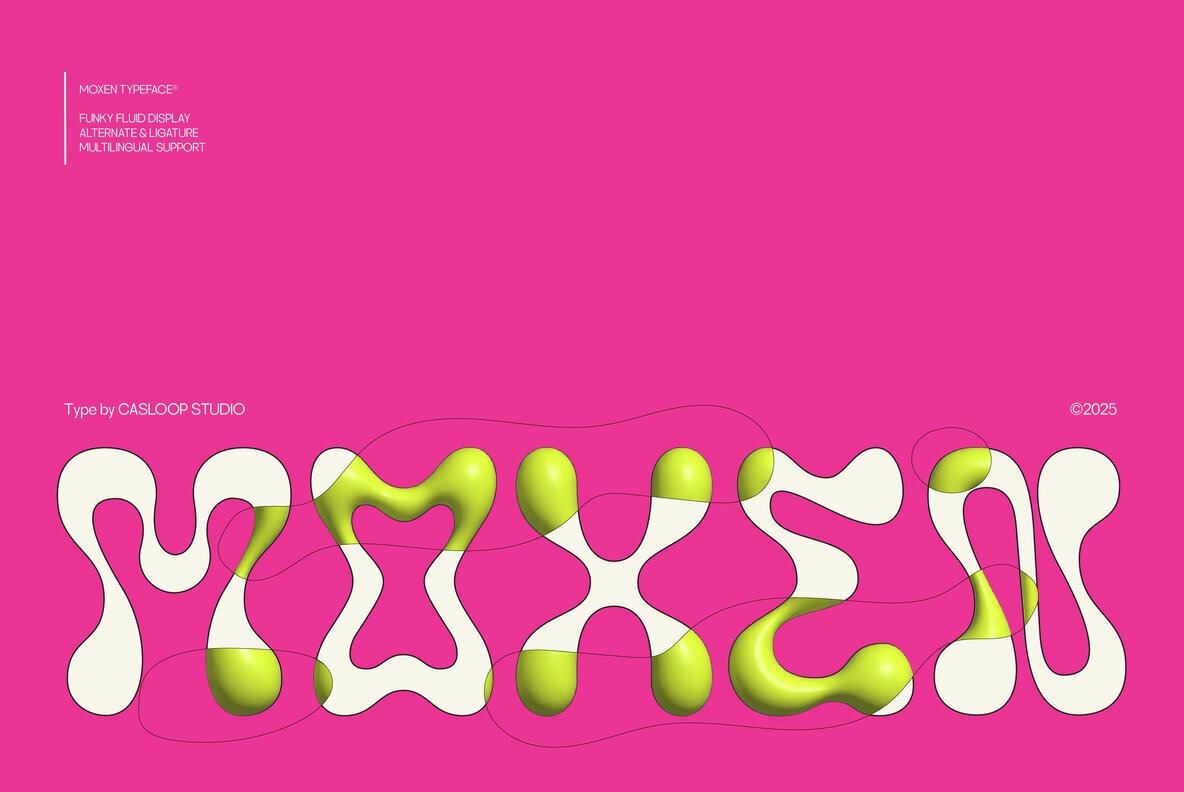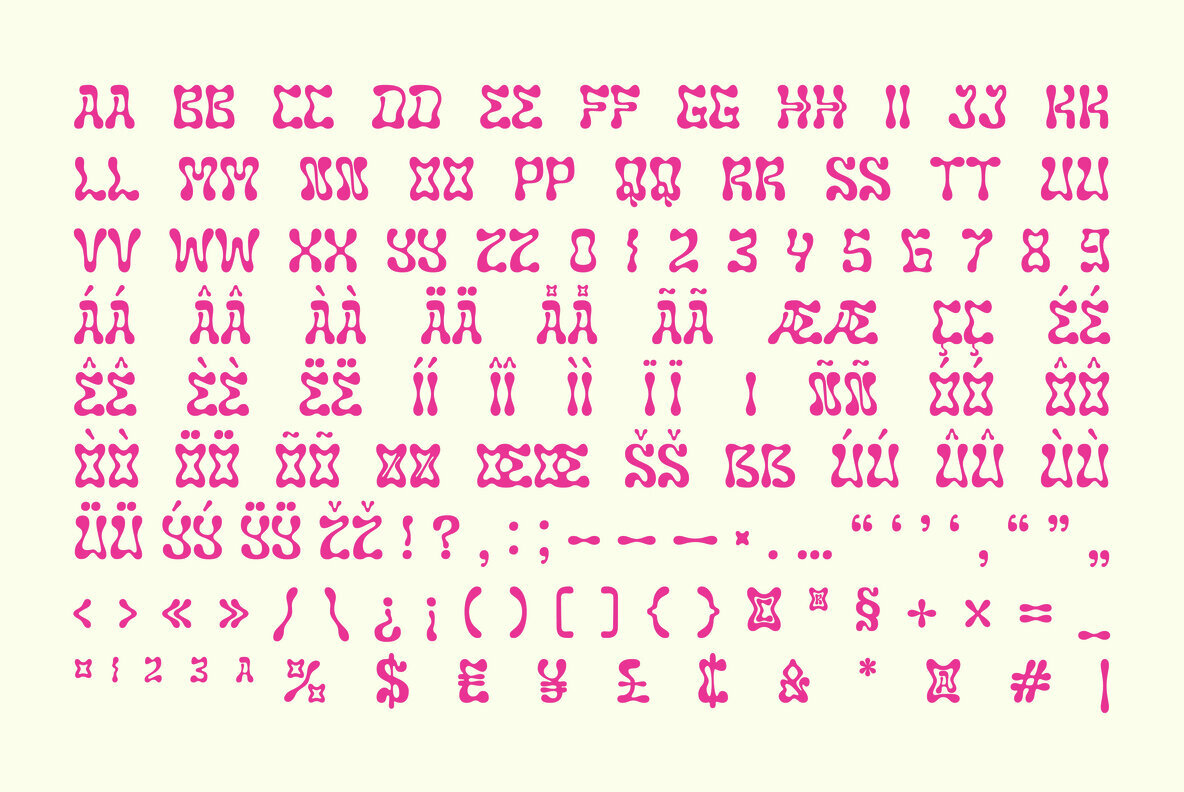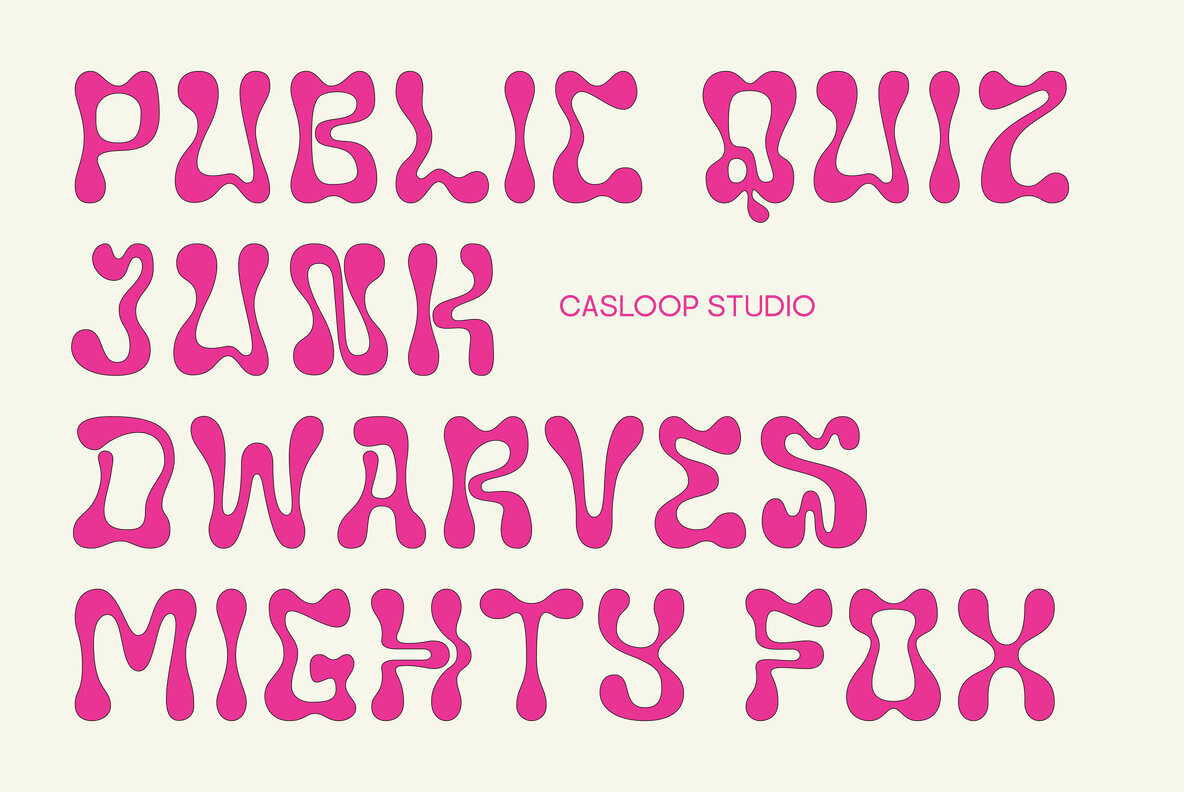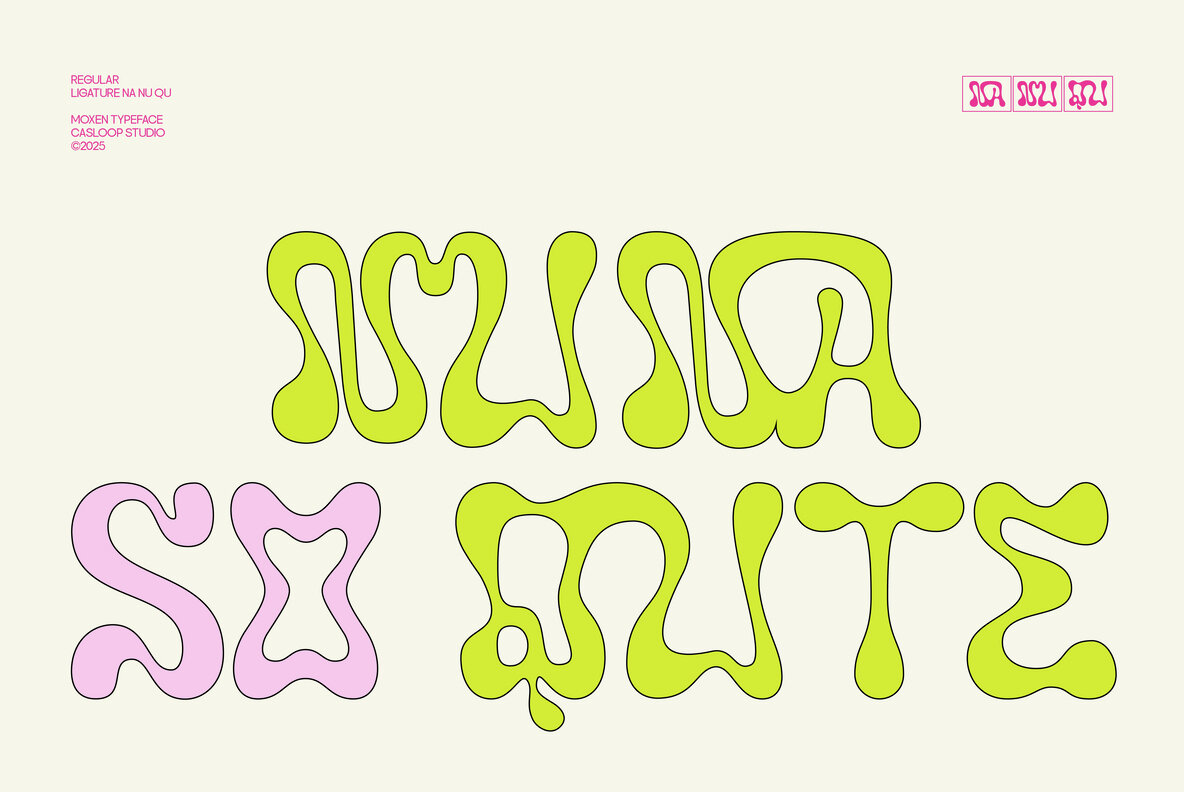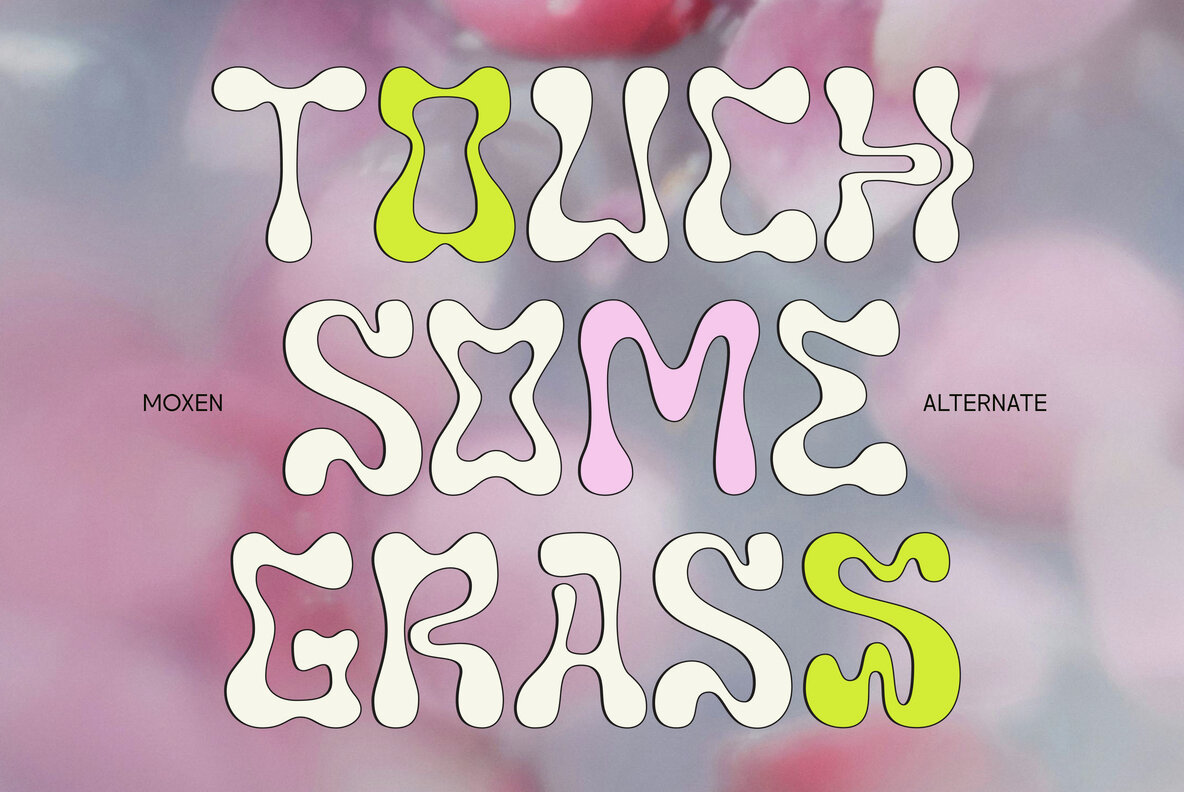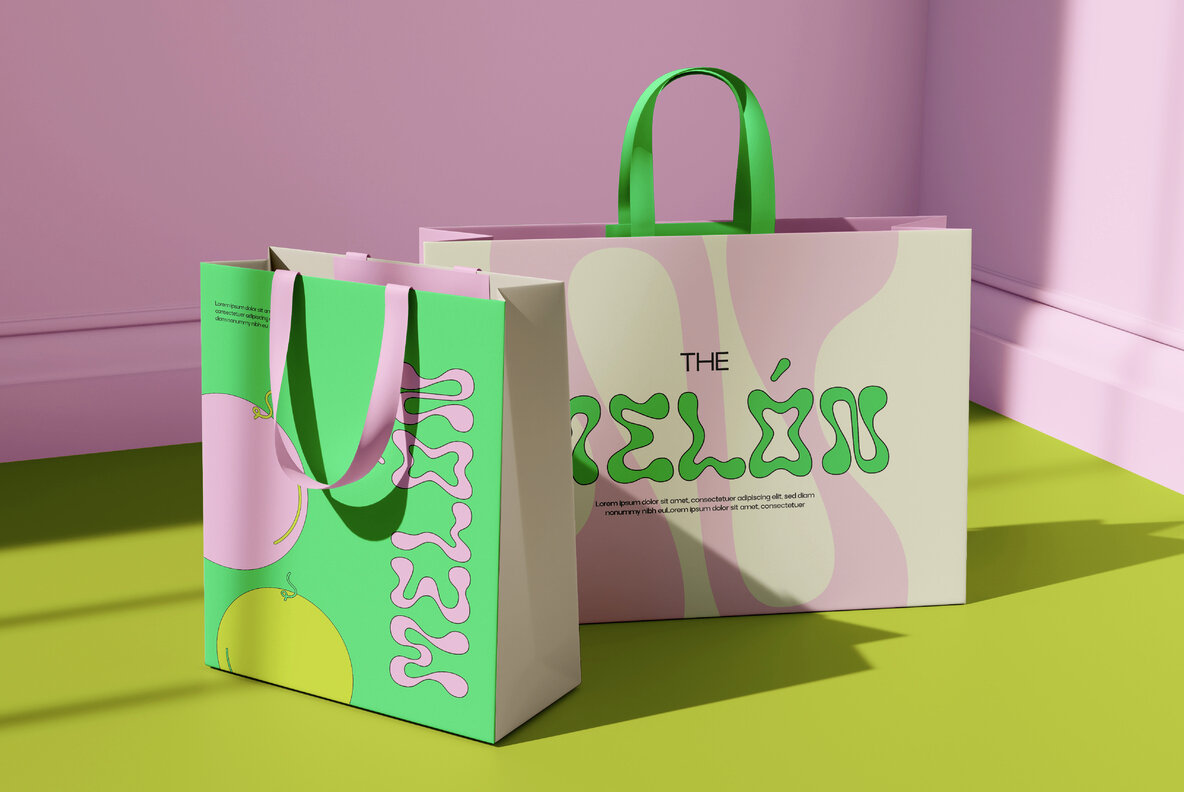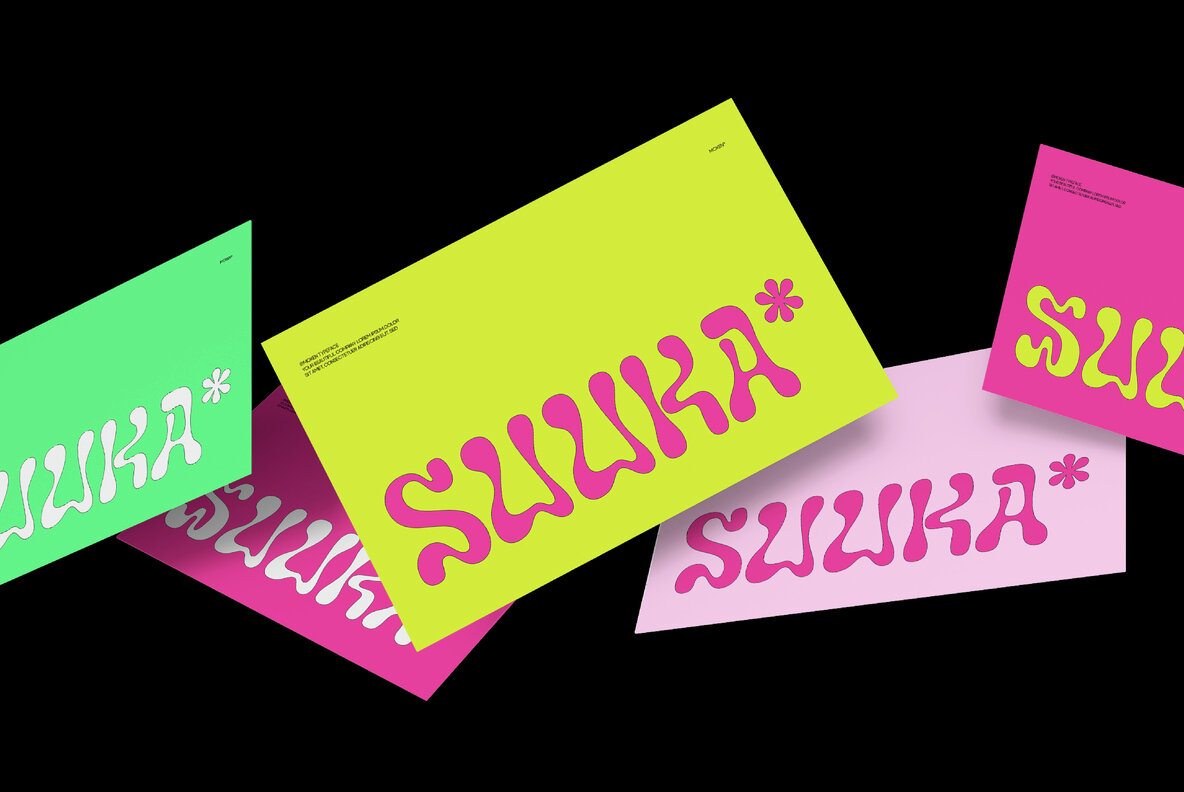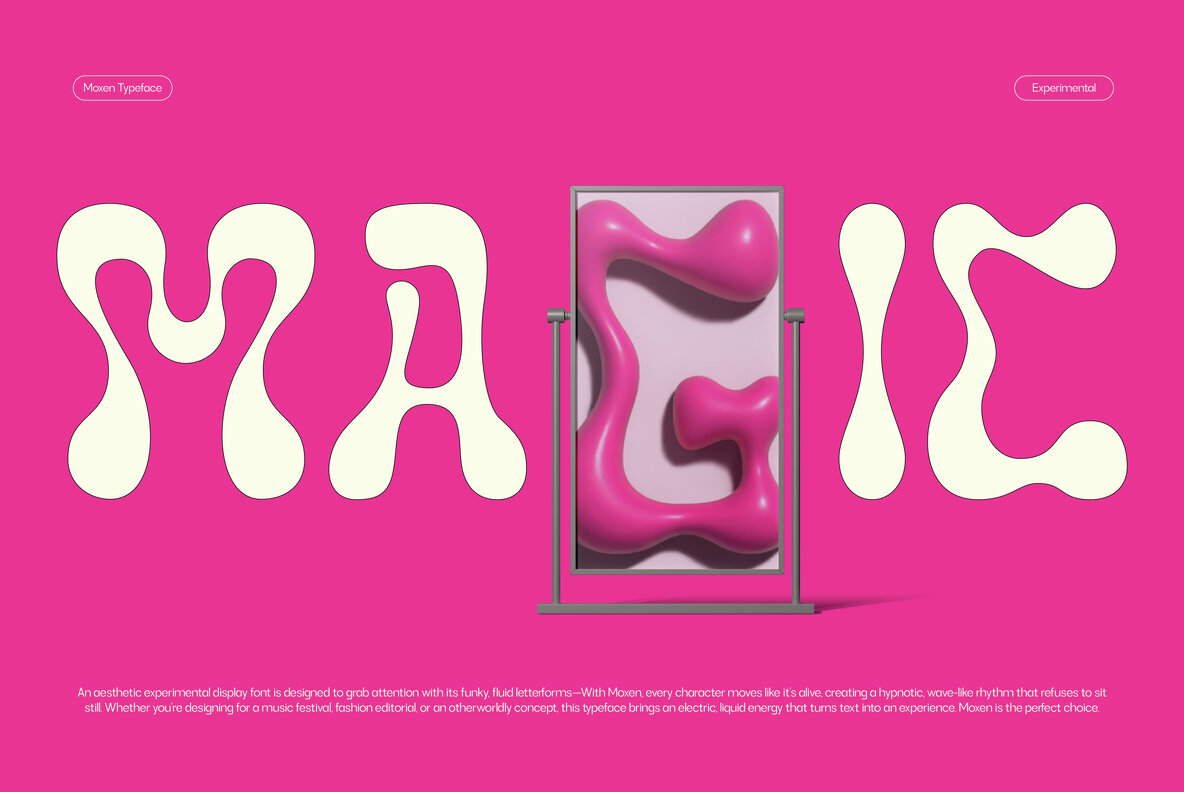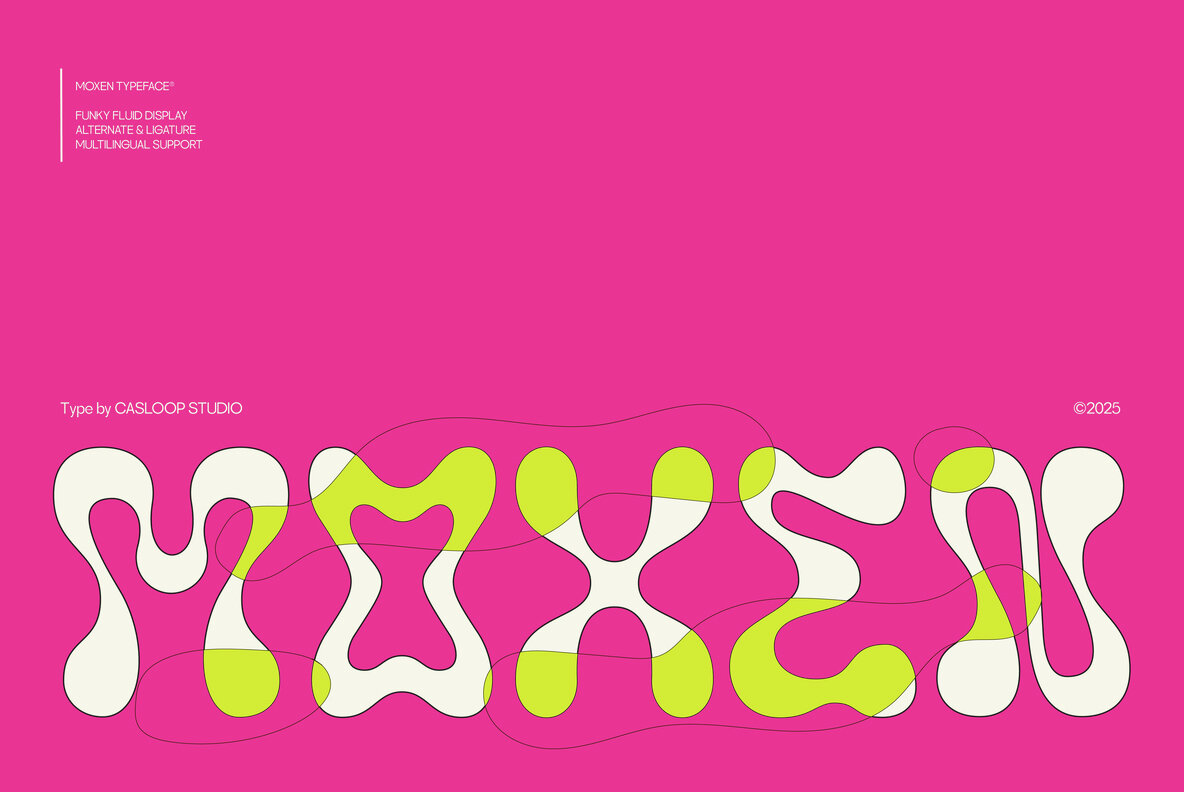
Moxen Font
Moxen Regular
Embrace the eccentric with Moxen, a bold and experimental display typeface designed for modern creators eager to make a statement. With its hypnotic, wave-like letterforms, Moxen captures the fluidity of creativity, offering a unique edge to your designs. This typeface balances fun and sophistication, ideal for bold projects across branding, editorial, and digital media. Let Moxen make your work unforgettable, embodying a vibrant, liquid-inspired aesthetic in every letter. Perfect for branding, packaging, posters, and social media content, Moxen's unique shapes and visual rhythm bring fun and energy to any project. Whether crafting music festival graphics, editorial layouts, or merchandise designs, Moxen adds a touch of sophistication and creativity. This typeface is ideal for creators who aim to make bold, unforgettable statements with their design work.Moxen Display Typeface